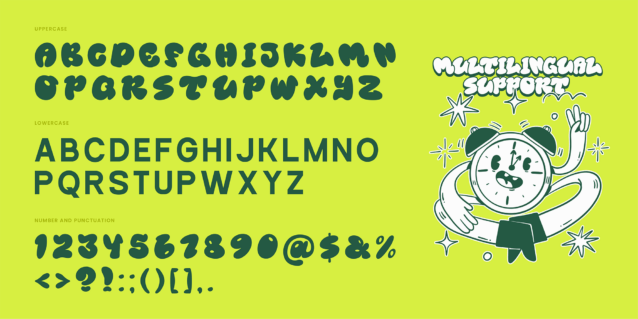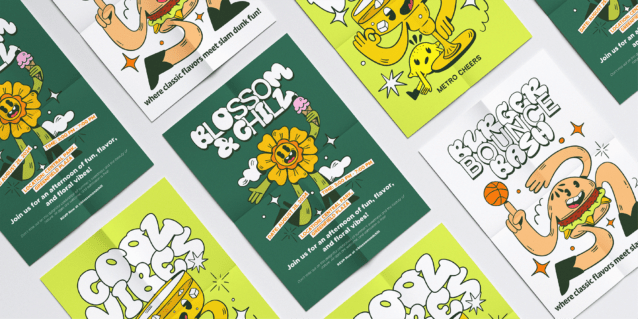
Groothan Mixed Font is a distinctive font that artfully combines the sleek, modern lines of sans-serif with the lively, graffiti-inspired flair of bubble lettering. This unique blend creates a versatile typeface perfect for contemporary graphic design, offering both a polished, professional look and a playful, street-smart edge. Ideal for bold brand identities, eye-catching social media graphics, and innovative print materials, Grootham Mixed ensures your designs stand out with a fresh, trendsetting style that captures attention and embraces the latest design trends.